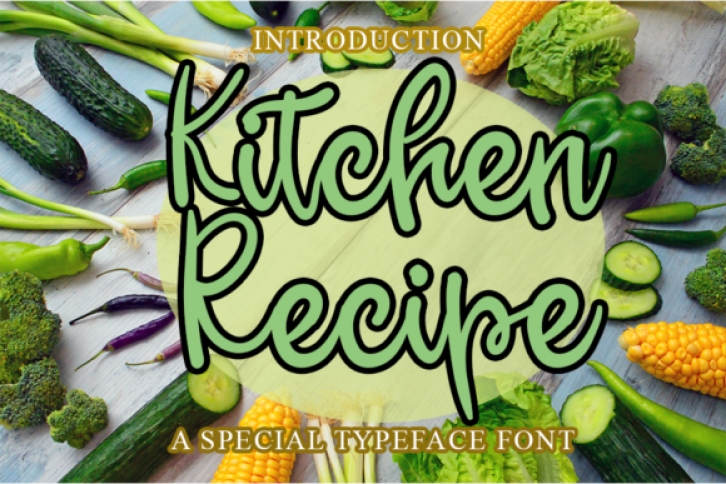
Kitchen Recipe is a sweet and delicate handwritten font. Dainty and joyful, this font will be ideal for writing wedding invitations, cards or any other design that may need a romantic, personalized touch!